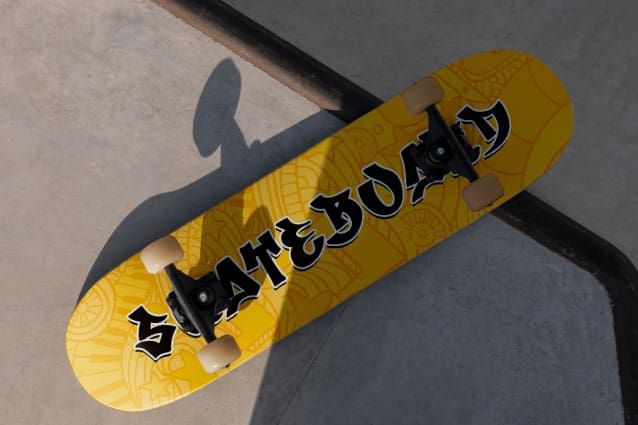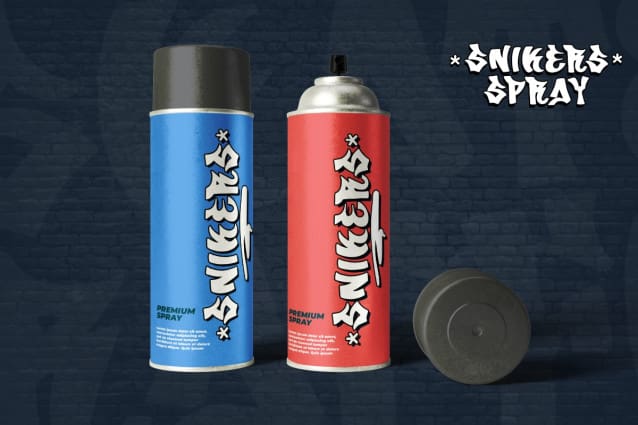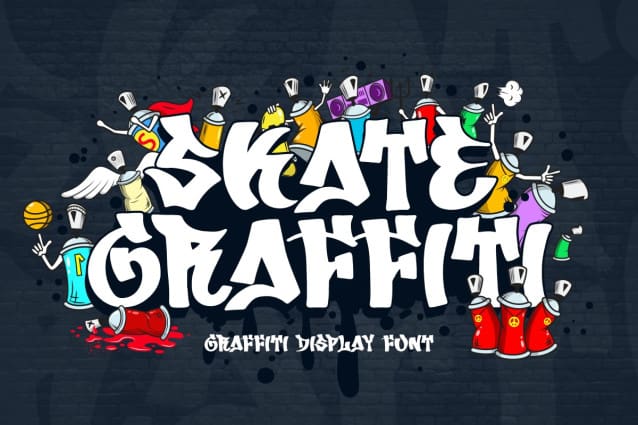
Skate Graffiti Font
Skate Graffiti Font – Modern Graffiti Font is the name given to this eye-catching decorative font. This font comes with a modern, unique, and cool look. Accompanied by excessive curves or additions, he looks charming and able to seduce every pair of eyes that see him. Skate Graffiti Font – Modern Graffiti Font looks like it was written using a thick brush, so this font is also bold.
Skate Graffiti Font – Modern Graffiti Font can be applied to event titles such as skateboarding. This font can use as a digital font such as movies, intros, and outro videos. This font can contribute to building a modern impression on everyone who sees it. Apart from being digital, it can also use on hoodies, jackets, and other clothing design items.
Apart from the things mentioned above, Skate Graffiti Font – Modern Graffiti Font can be used to write on the title of a brochure that contains a promotion for a product. This strong font character can make people know the brochure’s contents by looking at the title and the font used. This font can use as a sign for a place or event.